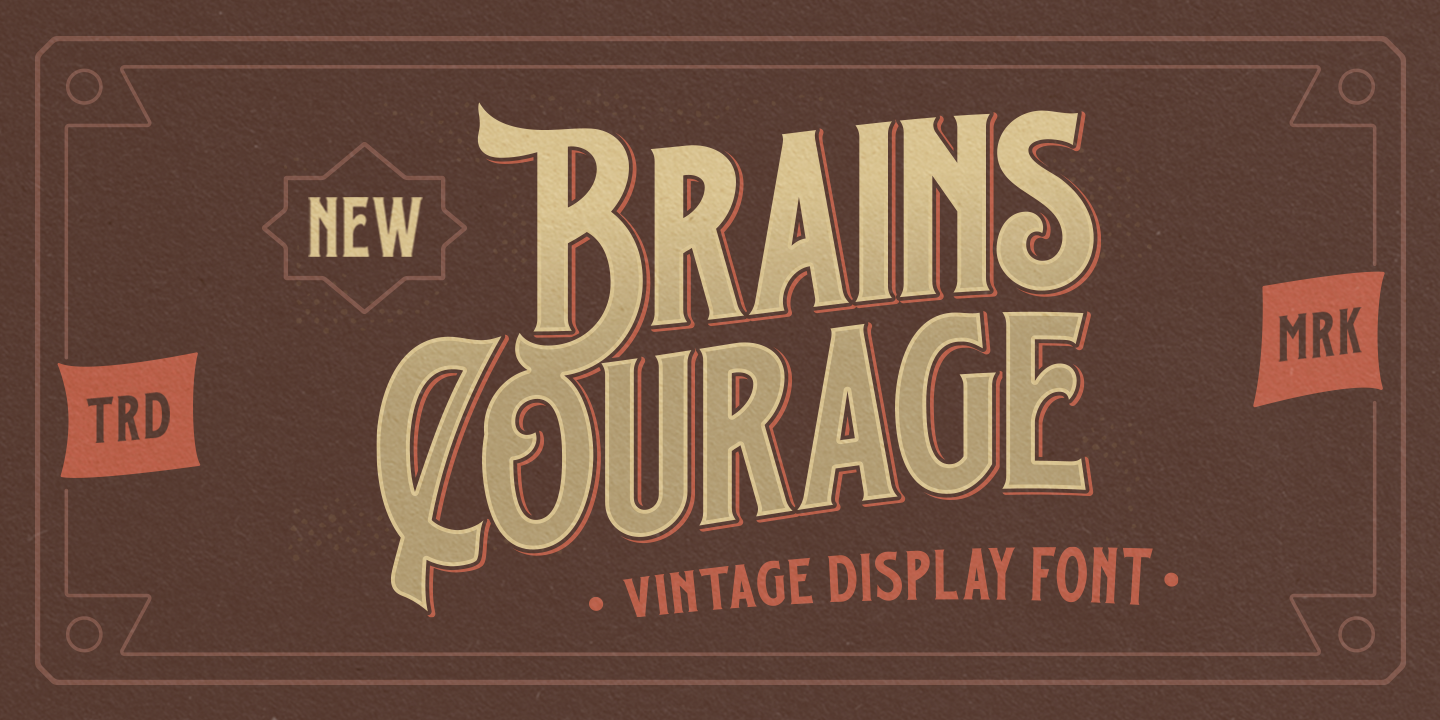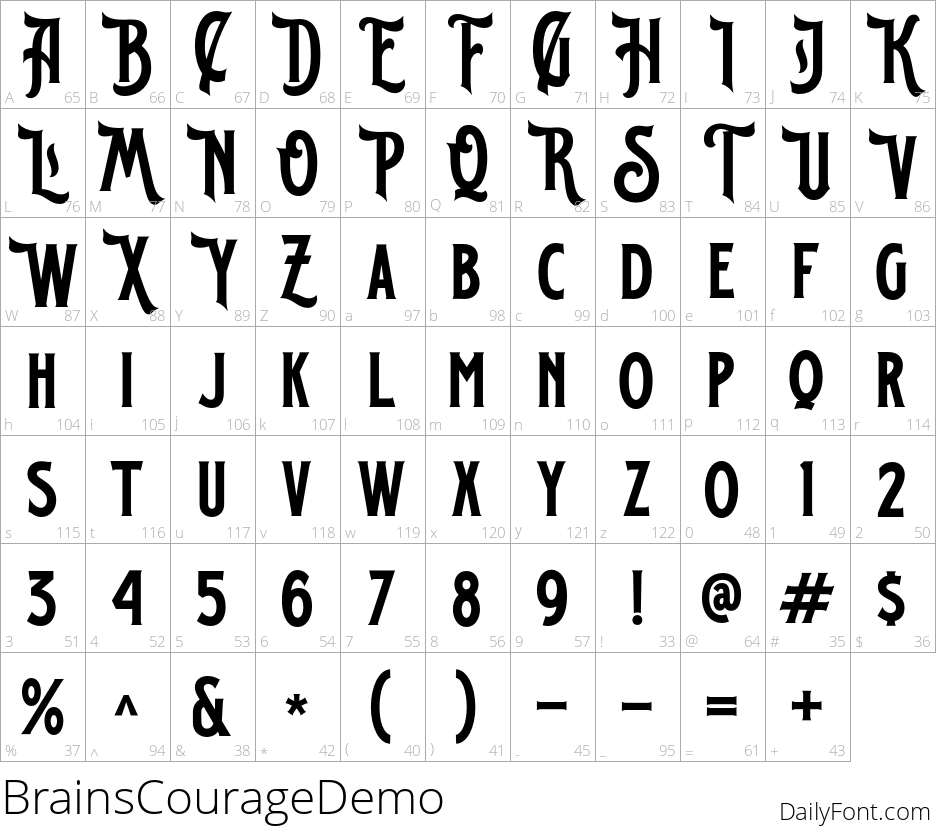
Brains Courage
Introducing Brains Courage, a stunning Victorian serif font that combines a classic elegance with a vintage flair reminiscent of the 60s and 70s signages. Its artistic design makes it an ideal choice for logos, invitations, labels, and other formal applications. Whether you're crafting a magazine layout, designing wedding cards, or enhancing packaging for fashion items, Brains Courage elevates your project with its sophisticated aesthetic.
This font comes equipped with a variety of features including numbers, punctuation, and multilingual support to cater to a global audience. Additionally, with its PUA encoding, accessing alternate characters is seamless, providing designers with the versatility they need. Embrace the timeless appeal of Brains Courage and transform your creative works into classic masterpieces that leave a lasting impression.